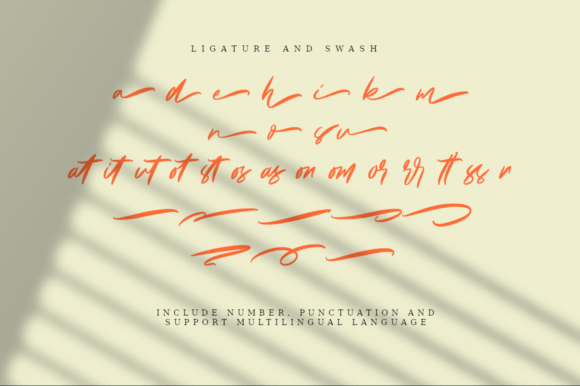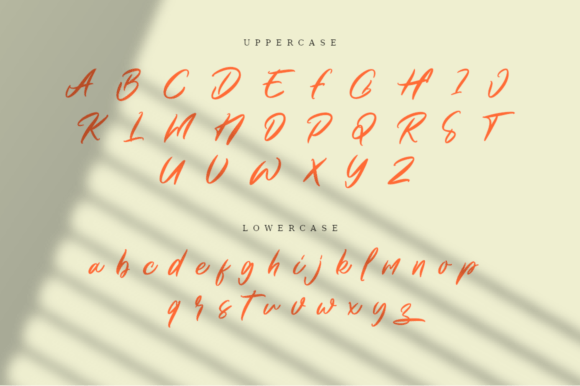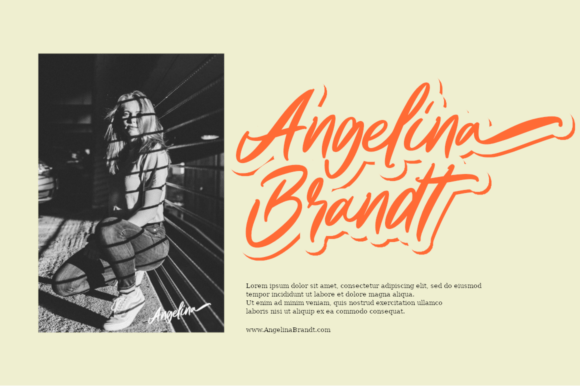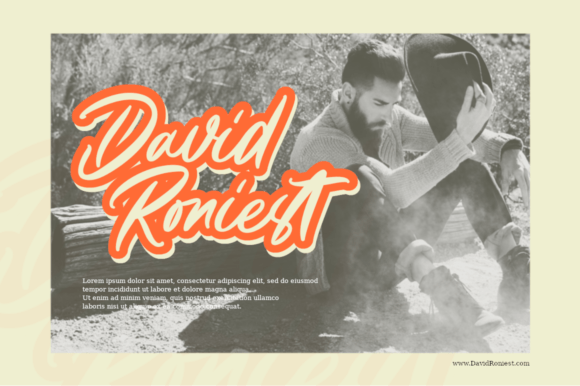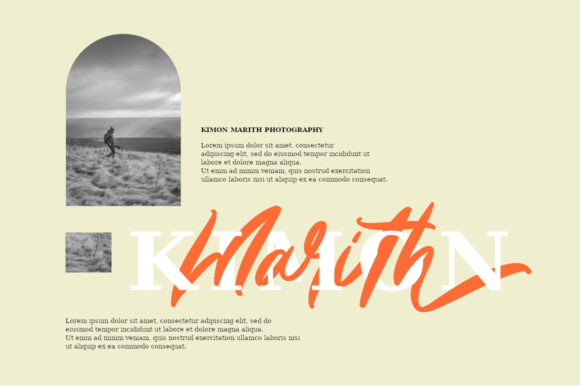
Introduction to Haruth Font
Haruth is an authentic and unique handwritten script font.
This font is perfect for stationery, greeting cards, branding, and much more This font is PUA encoded, which means you can easily access all of the great glyphs and swashes.
Key Features of Haruth Font
Why Choose Haruth Font?
Haruth Font offers exceptional quality and versatility, making it a valuable addition to your design toolkit. Whether you’re creating for personal projects or commercial use, Haruth Font delivers professional results.